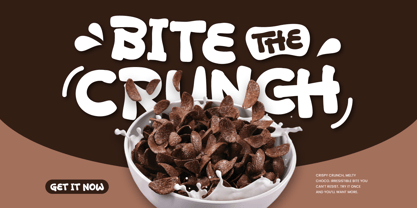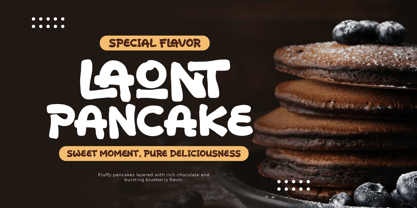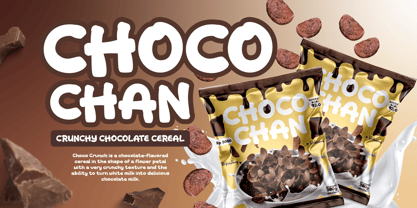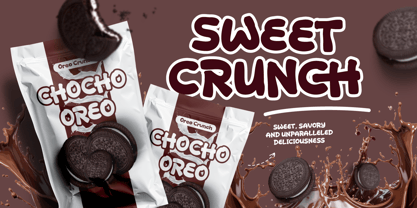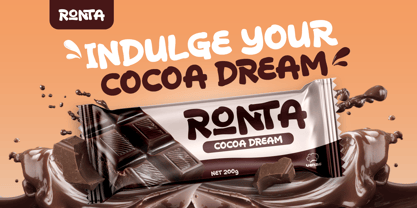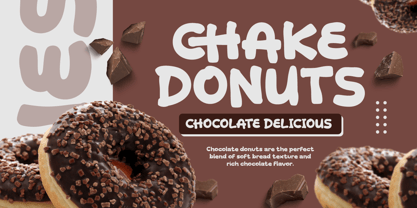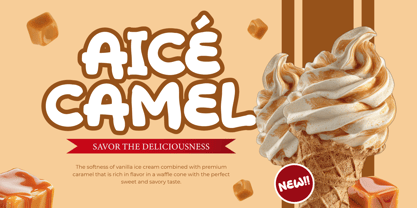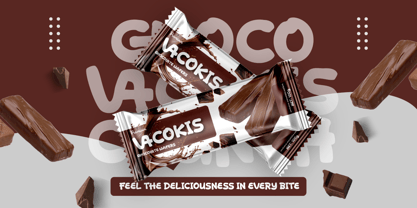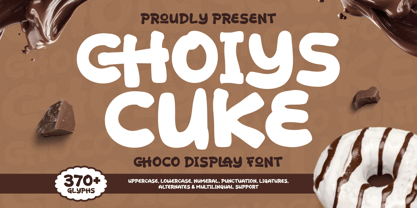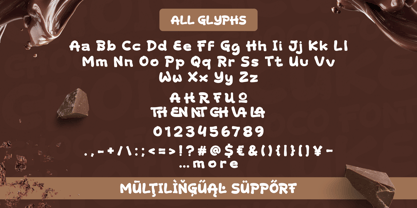
Choiys Cuke is a Choco Display Font specifically designed to captivate the F&B (Food & Beverage) market. Featuring ultra-rounded, bubbly, and bold letterforms, this font represents the soft and appetizing texture of sweet treats. Its characteristics are ideal for the Snack & Confectionery industry aiming to build a friendly and fun product image.
This typography carries a puffy aesthetic that psychologically provides a sense of comfort, perfectly suited for Daily Break-time Snack themes. Its expressive yet clearly legible letter structure ensures product names stand out on Chocolate Bar packaging. Choiys Cuke provides a visual balance between the cheerfulness of a snack and the professionalism of modern retail packaging design.
As a practical design solution, Choiys Cuke is highly effective when applied to product labels, culinary promotional posters, and bakery visual identities. Its ability to create a "delicious" visual impression helps products become more recognizable to consumers on store shelves. This font is a valuable asset for designers looking to bring a strong, warm, and engaging personality to daily food design projects.